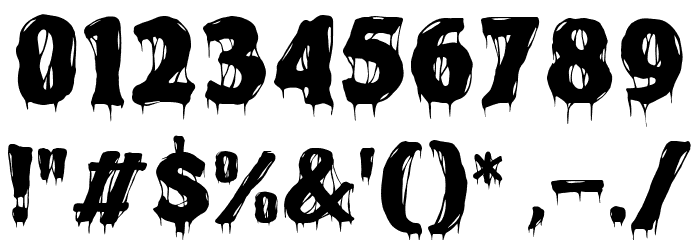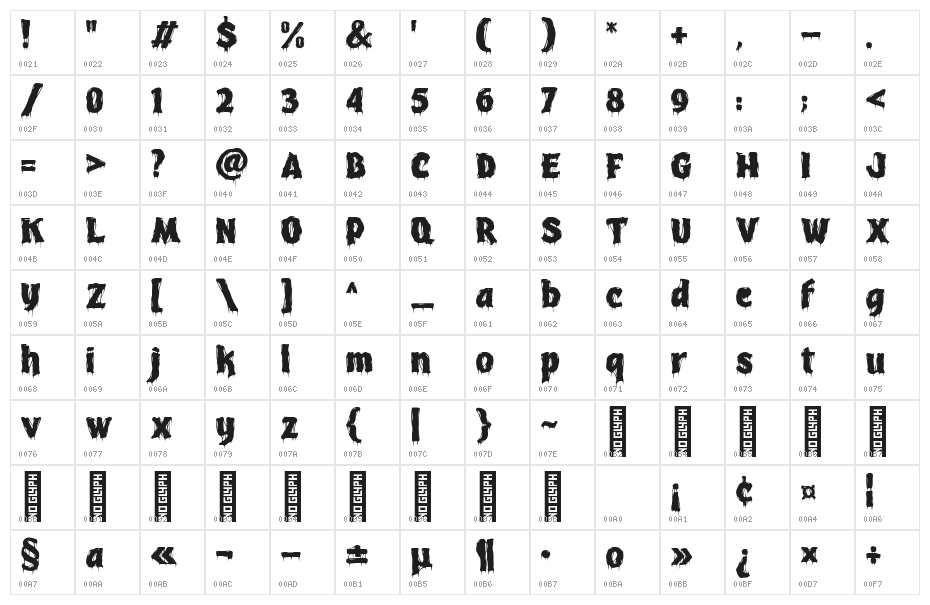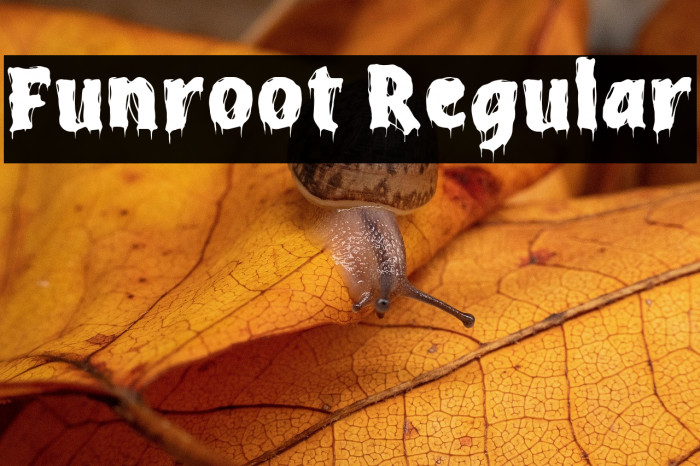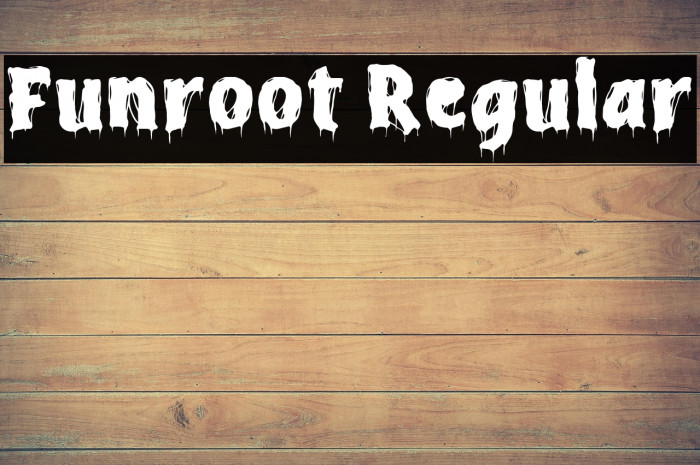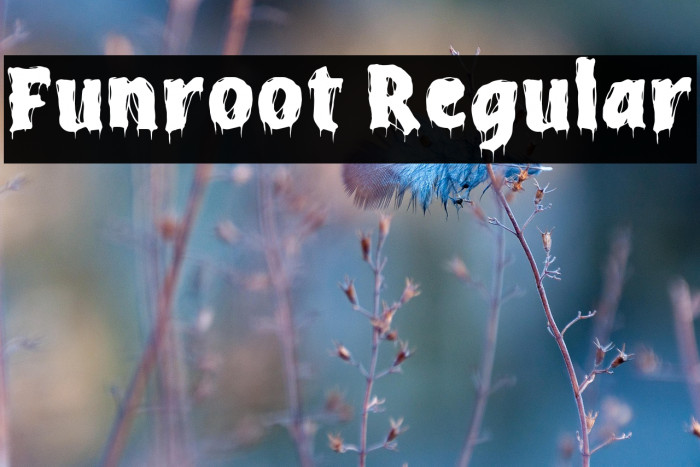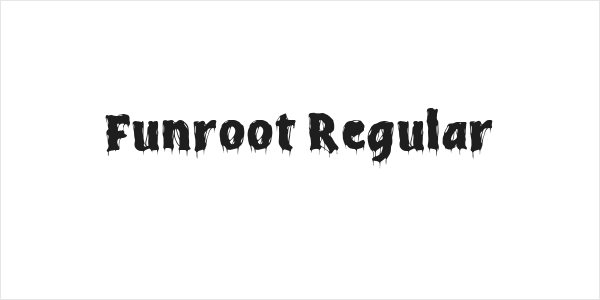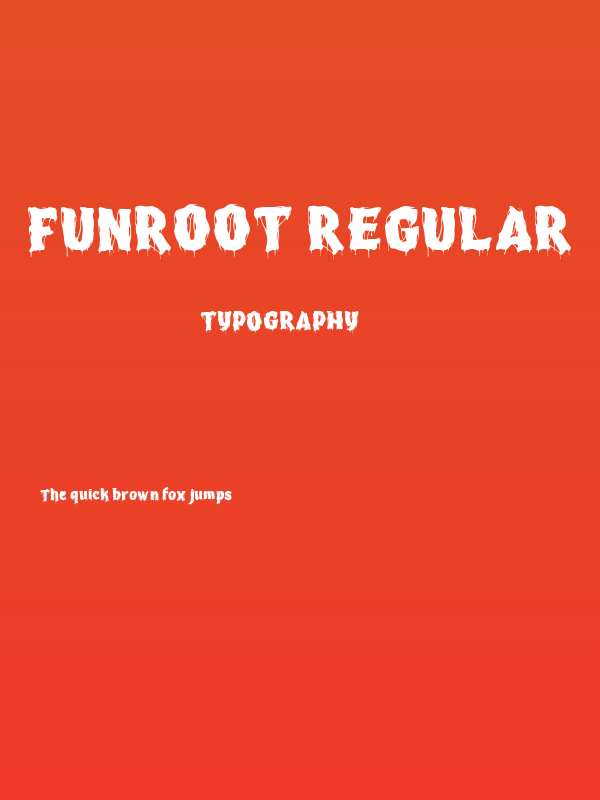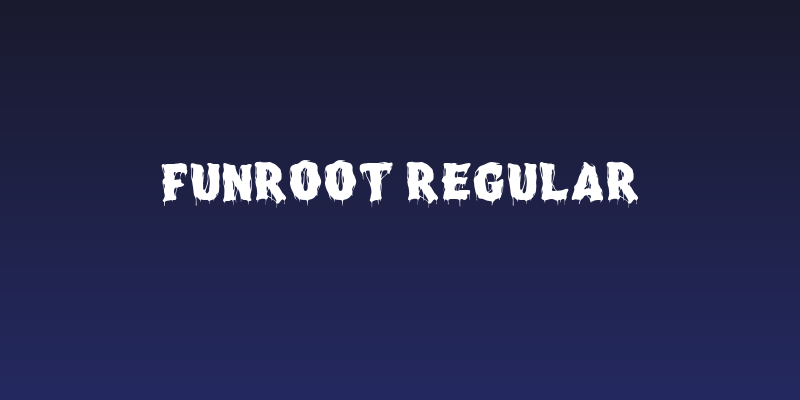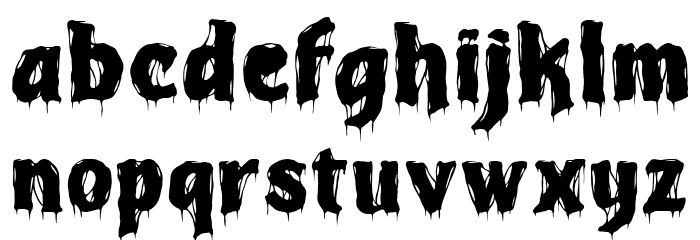
Funroot Regular Font
Funroot Regular Description
This font features a bold and dramatic style with a dripping effect that gives it a unique, eerie appearance. The characters are heavily stylized, with thick strokes and irregular edges that mimic the look of melting or dripping liquid. This creates a sense of movement and fluidity, making it ideal for designs that require a bold and eye-catching aesthetic. The uppercase and lowercase letters maintain a consistent style, while the numerals and special characters are equally distinctive, ensuring a cohesive look across all text elements.
Use CaseHeadlines, Posters, Logos
Proposed ProjectsIdeal for Halloween-themed designs, horror movie posters, spooky event invitations, and any project requiring a dramatic and eye-catching font.